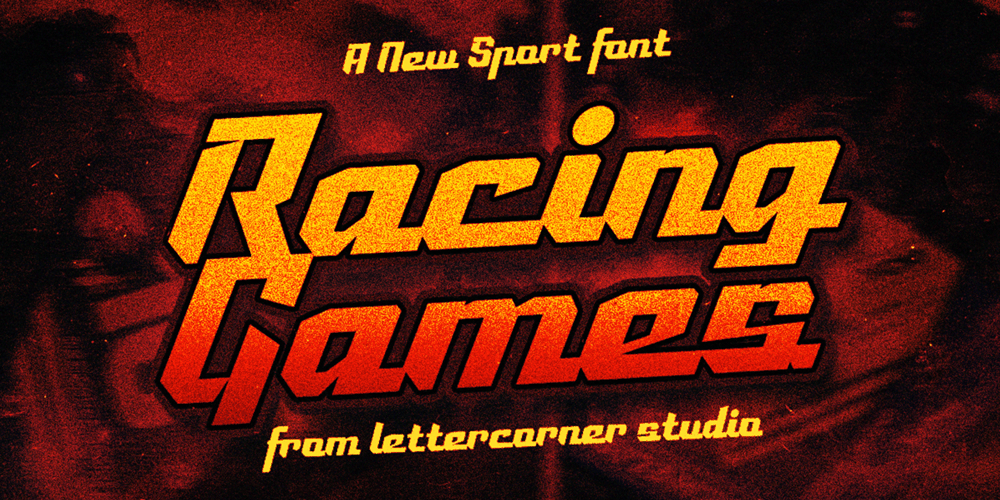
Racing Games Font Family was designed by Muhammad Afif Ersya and published by Mevstory Studio. Racing Games contains 1 styles and family package options. Racing Games is a font with a race theme. With a strong style, consistent at sharp corners, but it will look good because it maximizes the shape to make it look strong, fast, and powerful.Racing Games it’s perfect for logotype racing product, racing game covers, sports events, automotive posters, automotive magazine covers, branding, product design, labels and other creative project.What’s Included : Standard glyphs Works on PC / Mac Simple installations Accessible in the Adobe Illustrator, Adobe Photoshop, Adobe InDesign, even work on Microsoft Word PUA Encoded Characters, Fully accessible without additional design software. Multilingual support Thank you for your purchase!Hope you enjoy with our font!